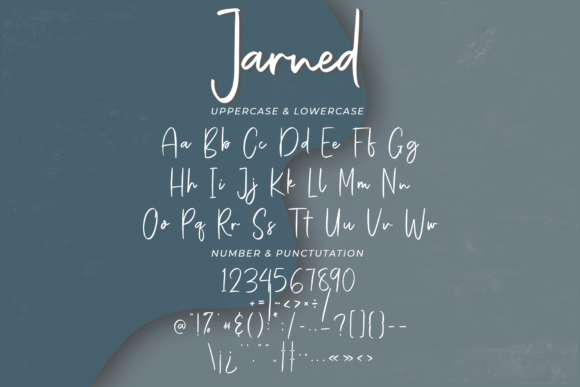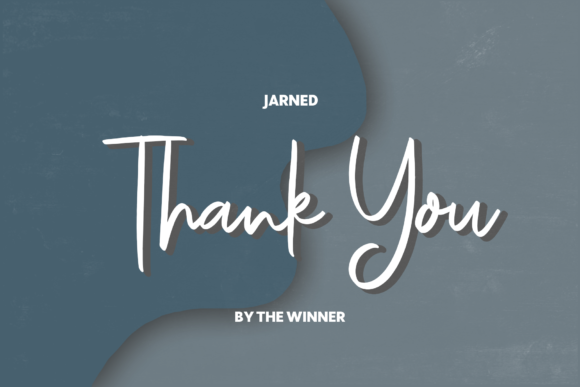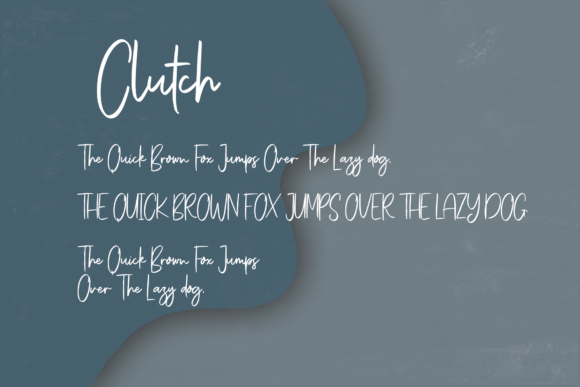
Jarned Font
About Jarned Font
Jarned is a clean, simple and lovely paint brushed script font. This font was particularly crafted for those who need a beautiful and refreshing look to their designs.